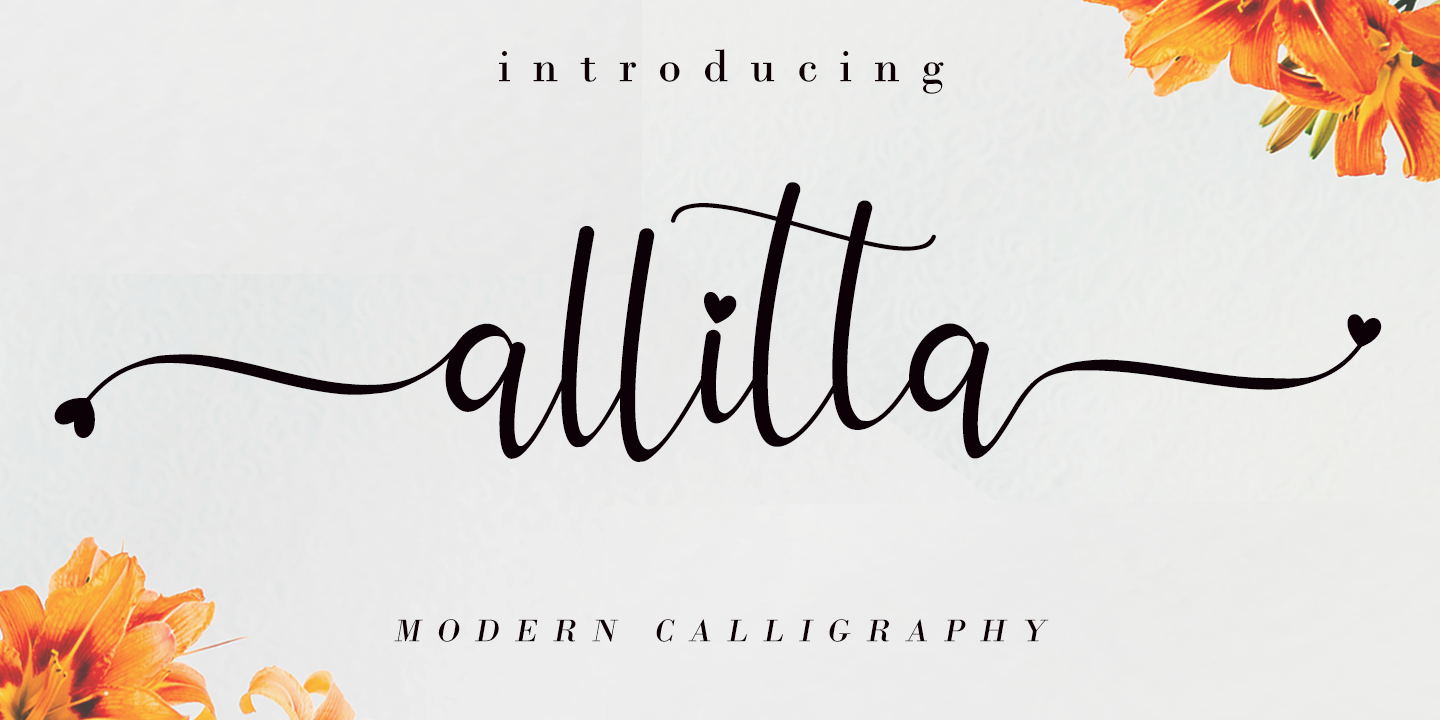
Allitta Calligraphy Font is perfect for elegant wedding invitation suites, luxury calligraphy service branding, sophisticated stationery design, premium greeting card collections, upscale event planning materials, fine art gallery communications, exclusive boutique marketing, and refined personal correspondence designs. This graceful typeface excels in applications where calligraphic artistry, handwritten elegance, and traditional penmanship beauty are essential for connecting with audiences who appreciate the timeless craft of beautiful lettering and the sophisticated art of classical calligraphy.
What makes Allitta Calligraphy Font so exciting is its masterful embodiment of calligraphic tradition and handwritten artistry that perfectly captures the essence of classical penmanship and the flowing beauty of traditional letter arts. The font features graceful, hand-lettered forms with calligraphic characteristics that evoke fountain pen elegance and master calligrapher techniques. Its artistic character conveys sophistication, craftsmanship, and timeless beauty - essential qualities for brands serving luxury markets, artistic communities, and audiences who appreciate handwritten craftsmanship, calligraphic excellence, and the enduring elegance of traditional letter arts and sophisticated penmanship traditions.
The Allitta Calligraphy Font family includes multiple artistic weights and calligraphy-inspired variations that enhance its elegant appeal. Some versions feature elaborate flourishes and connecting strokes that demonstrate advanced calligraphic techniques and traditional letter art mastery, while others provide streamlined variants that maintain the font's artistic character with enhanced readability for professional luxury applications and commercial calligraphy service communications.
Whether you're creating branding for calligraphy services, designing materials for luxury events, or developing marketing campaigns for artistic experiences, Allitta Calligraphy Font Free Download provides the artistic sophistication your project requires. The font's calligraphic character makes it particularly effective for brands targeting luxury audiences who appreciate handwritten artistry, traditional craftsmanship, and the timeless elegance of classical calligraphy and sophisticated letter arts.
Create with artistic mastery using Allitta Calligraphy Font and flourish your brand communications with typography that celebrates the graceful beauty of traditional calligraphy and handwritten elegance.